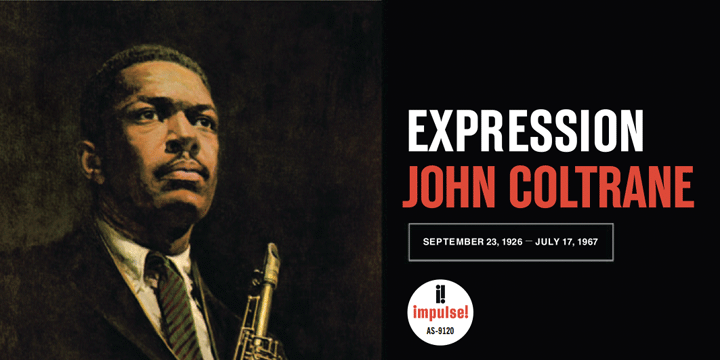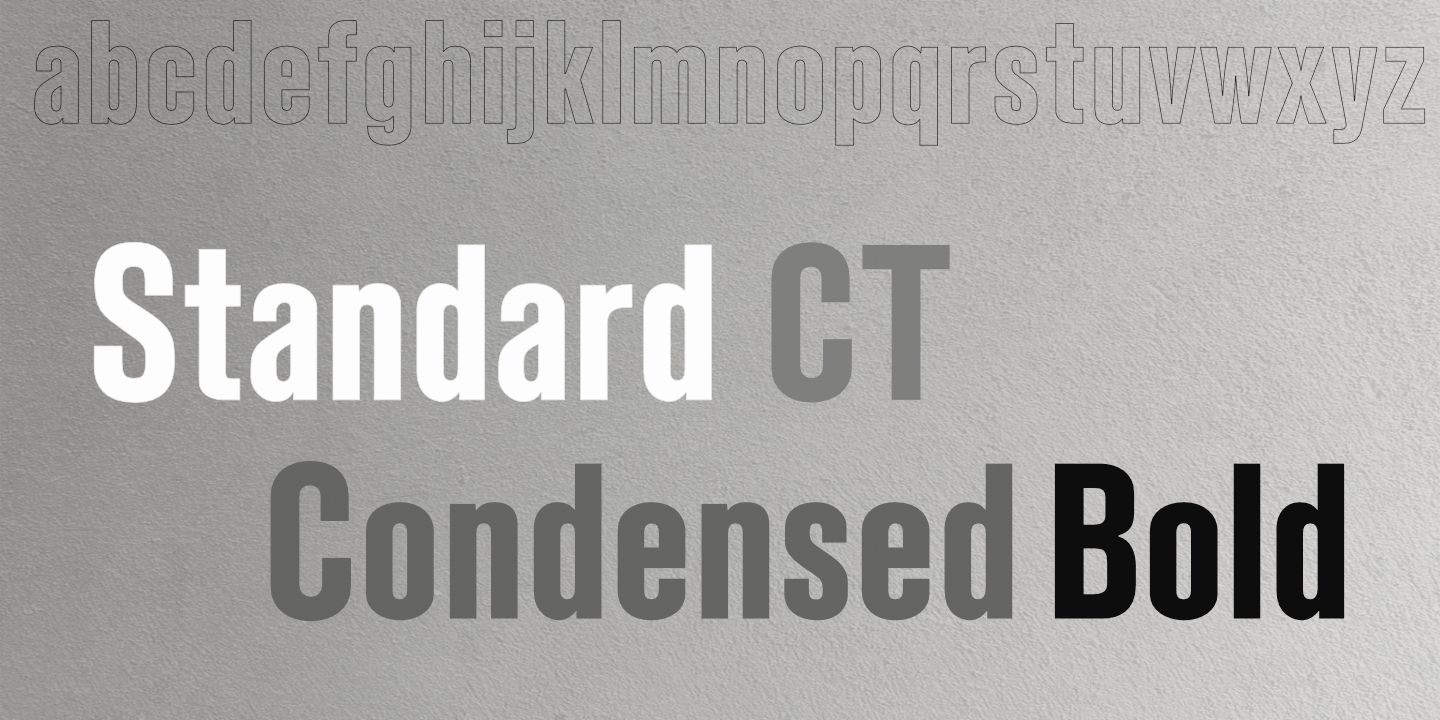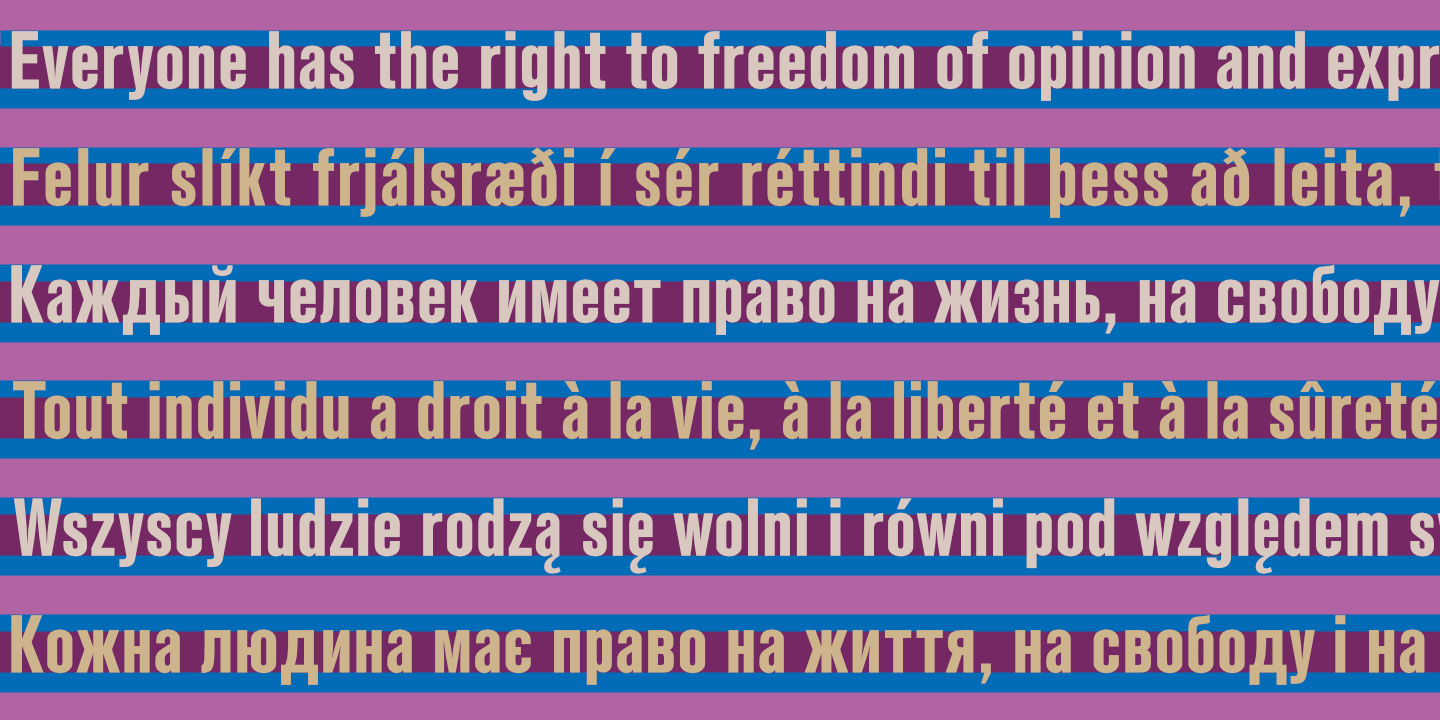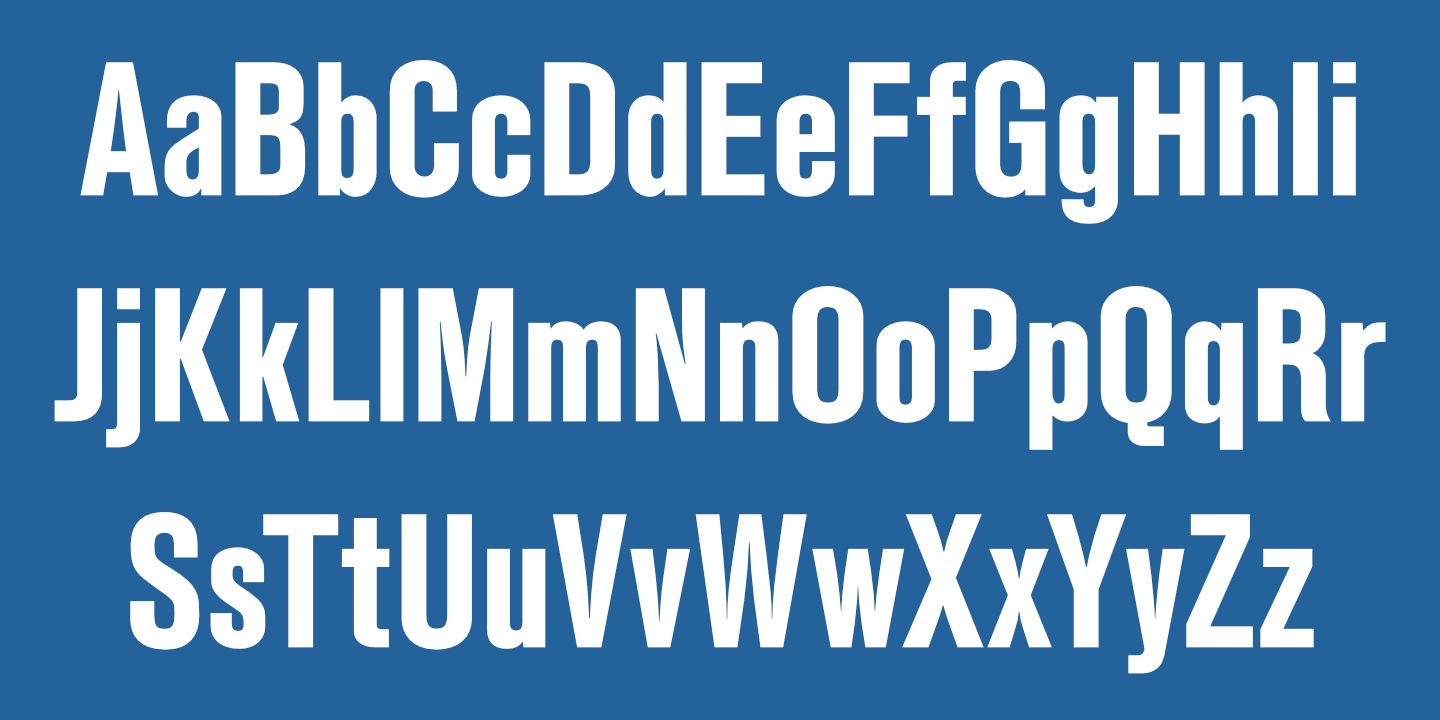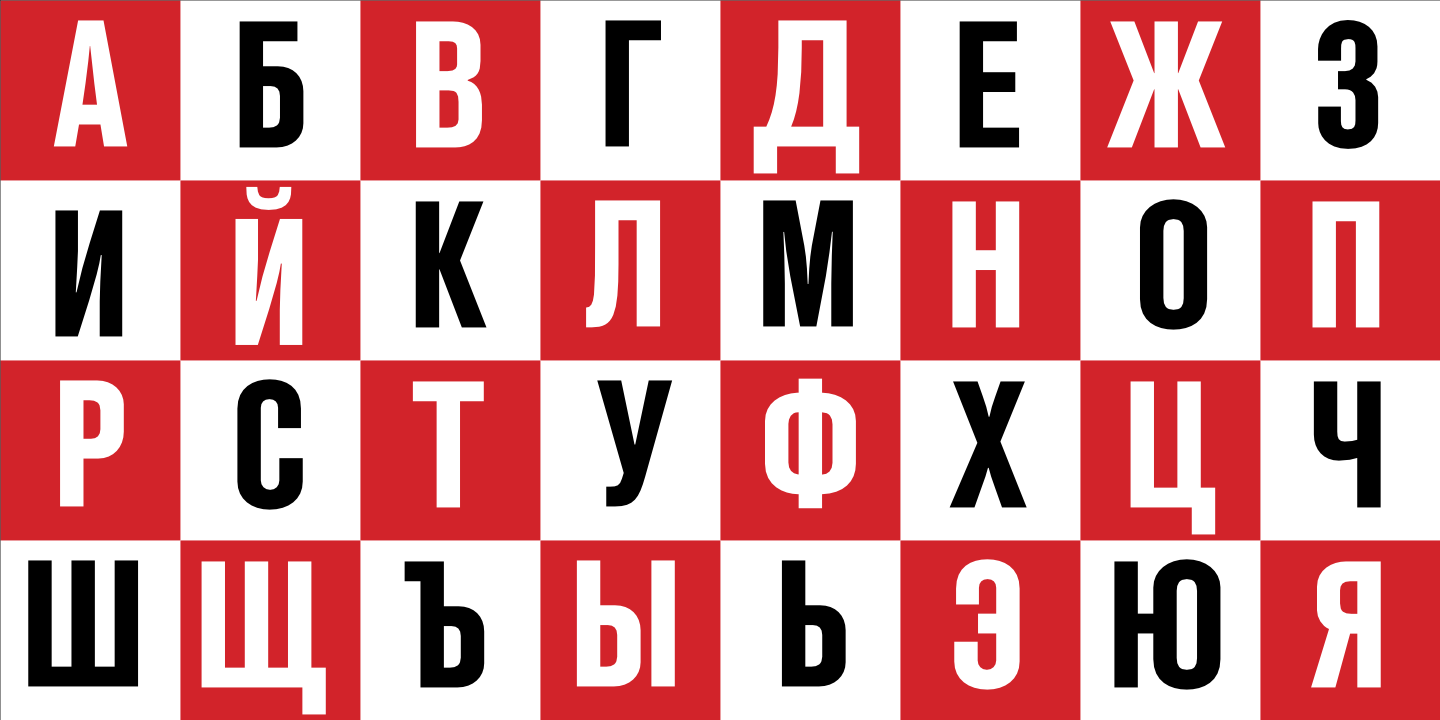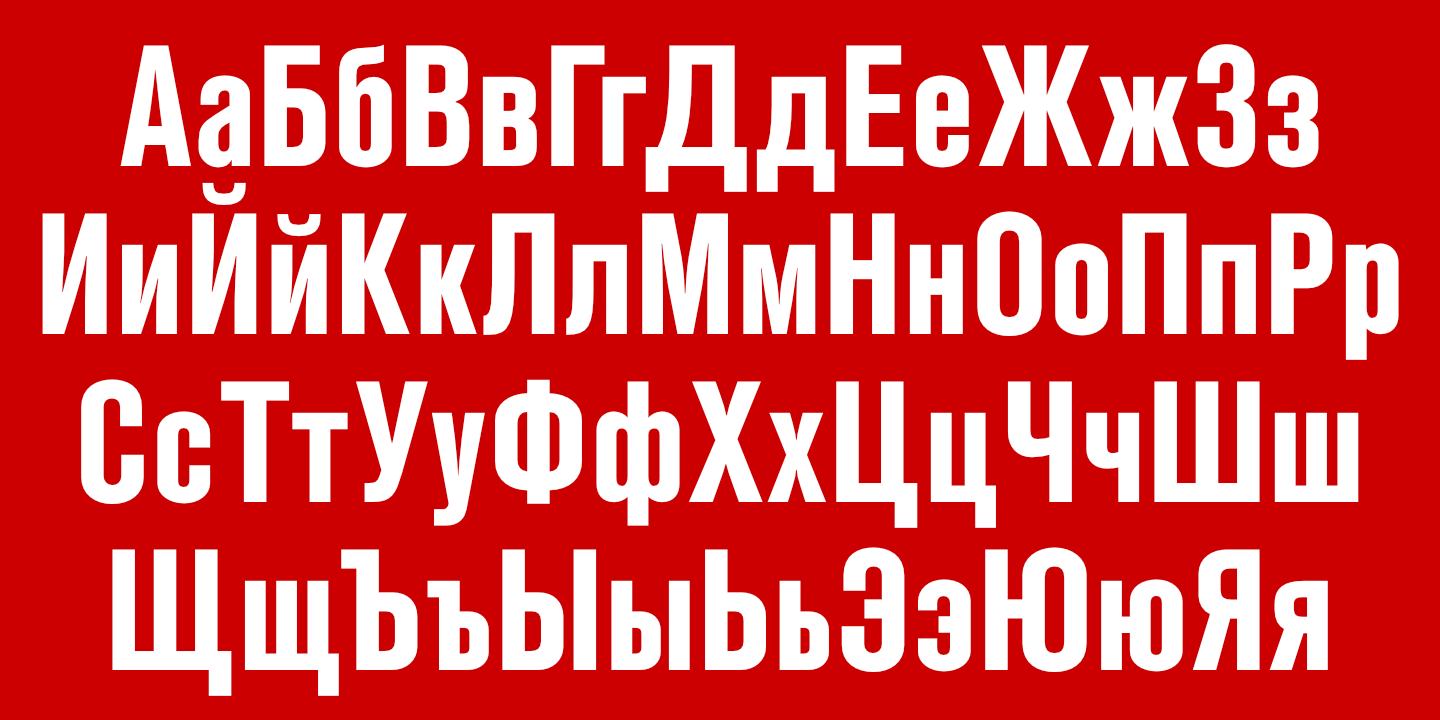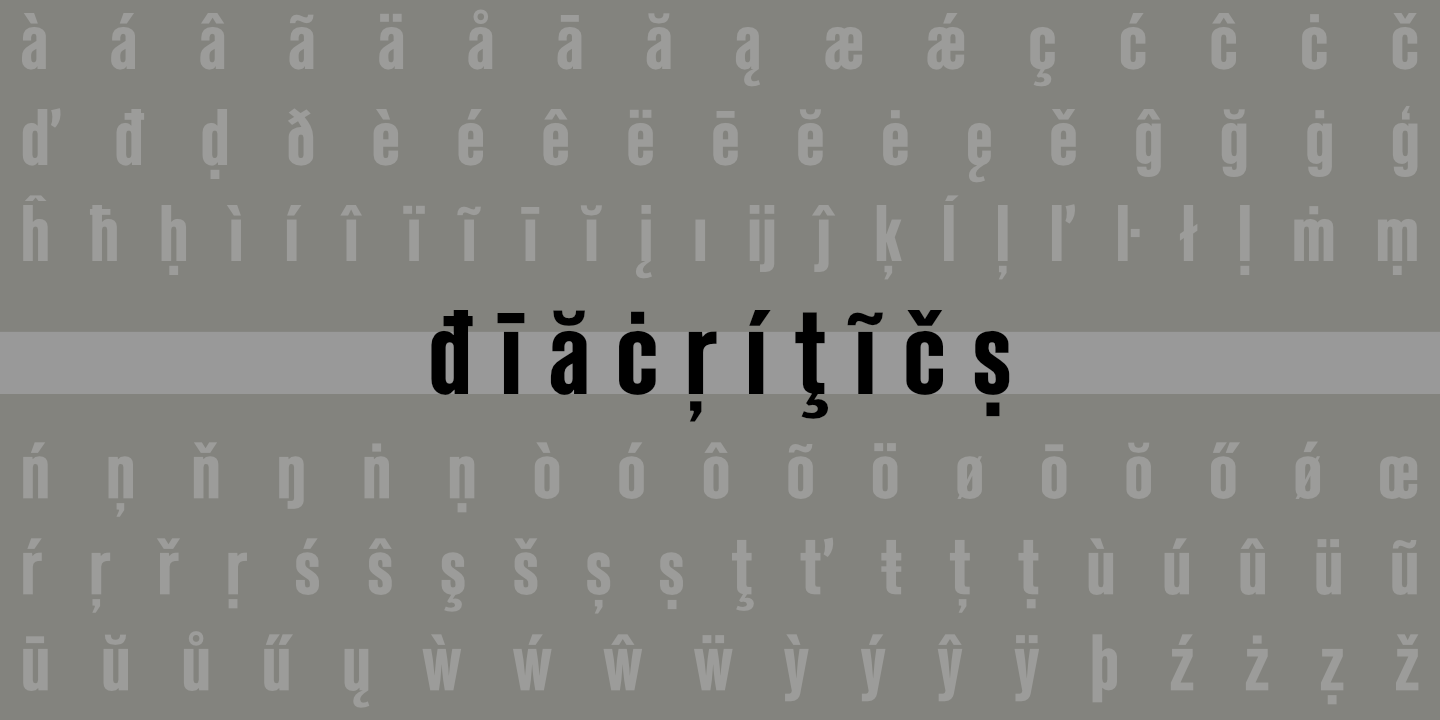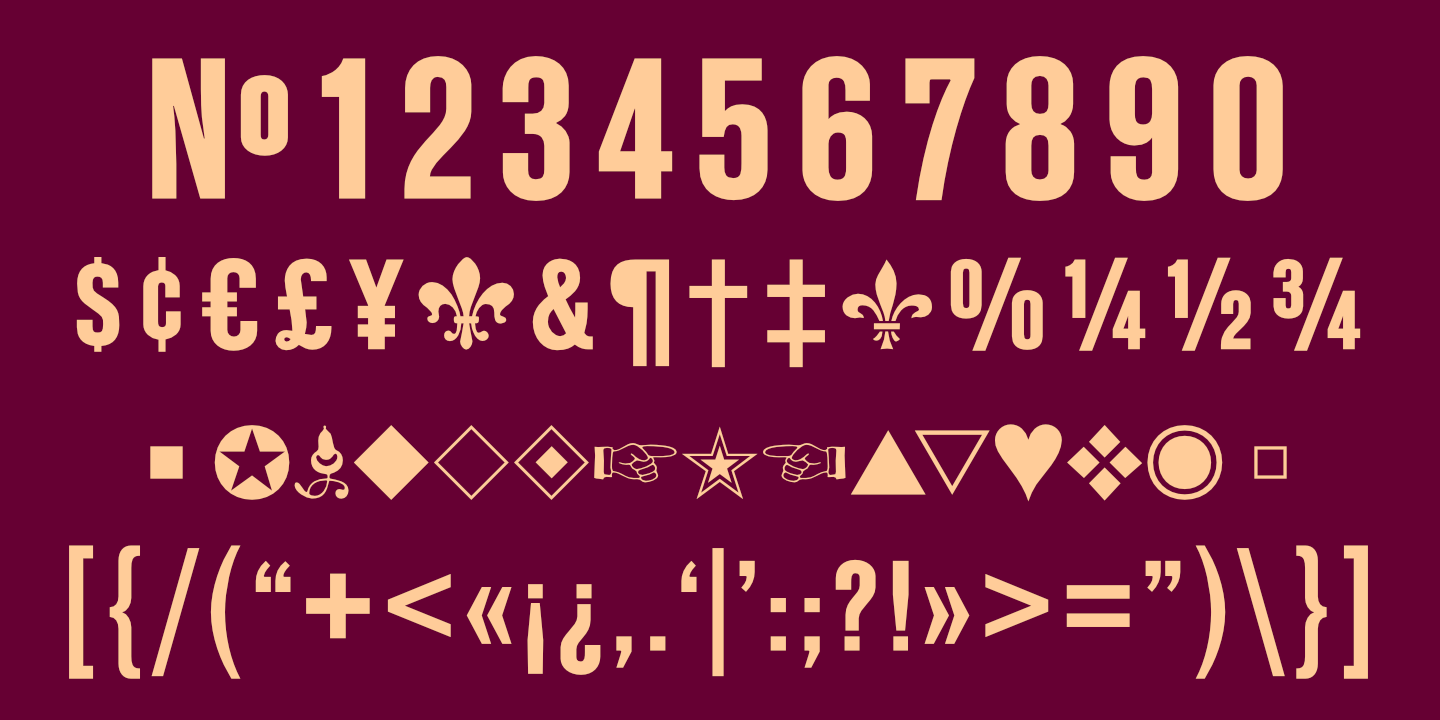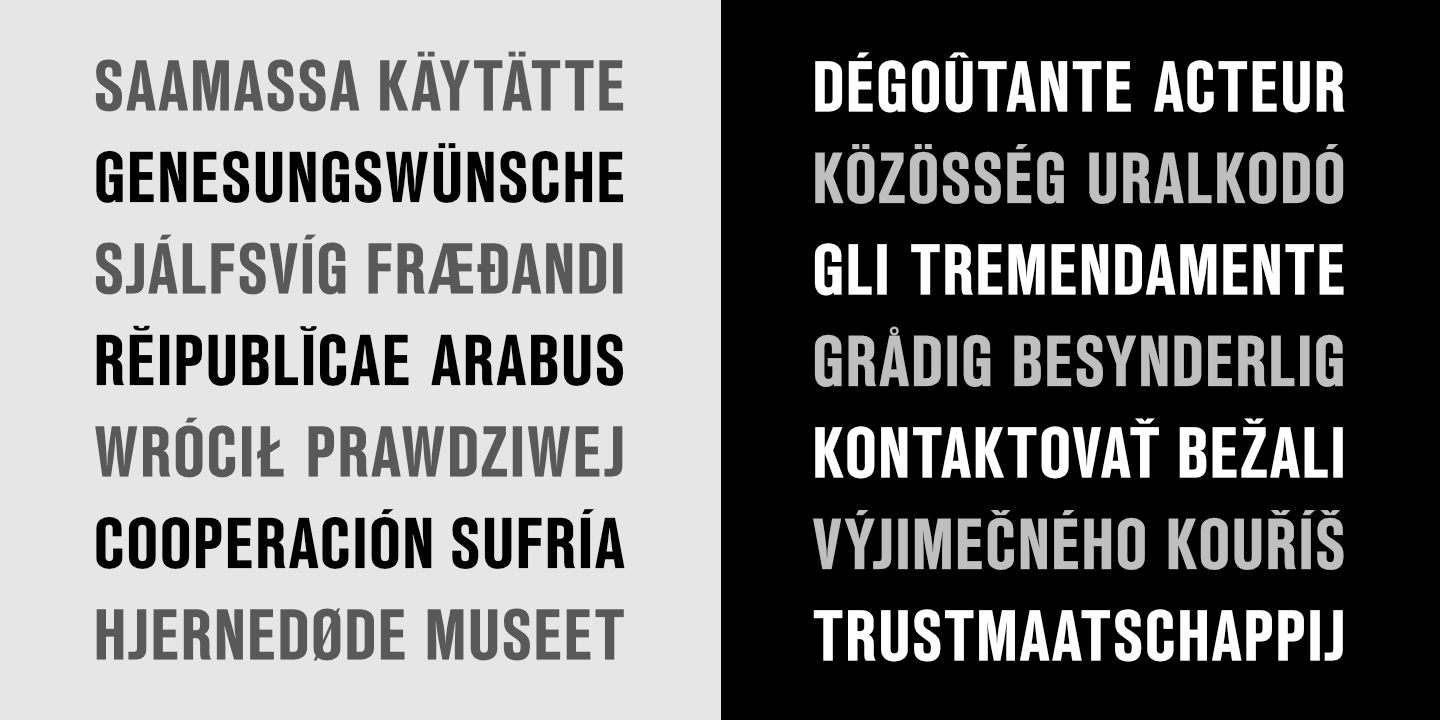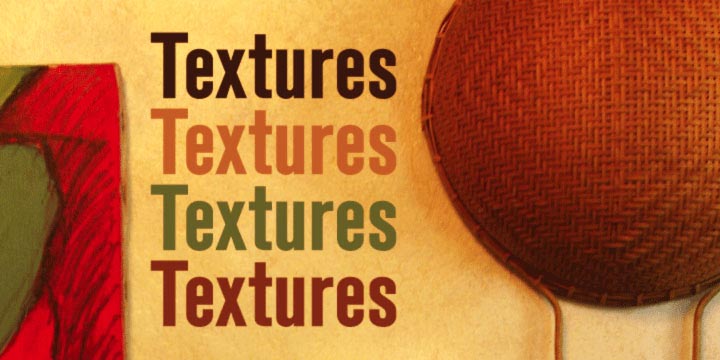
Standard CT Condensed Bold: Basic Latin alphabet. See Glyphs for details.
Standard CT Condensed Bold supports most languages that use the Cyrillic alphabet (above and below).
Standard CT Condensed Bold: Numerals, basic punctuation, currency symbols, and a sampling of ornaments.
Standard CT Condensed Bold supports most European languages.
Standard Condensed Bold as used on album cover.
All 38 Standard CT fonts for comparison. Zoom for detail.